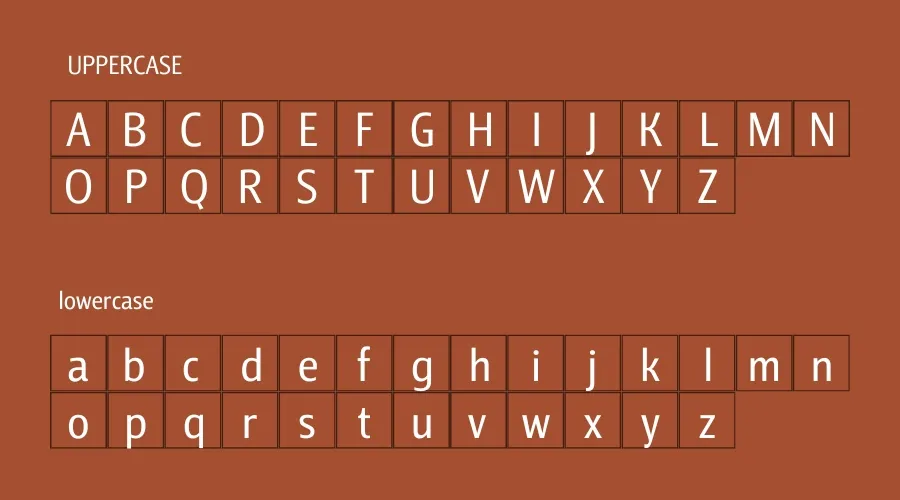
Barnaul Grotesk Font
About Barnaul Grotesk Font
In this post, we shell going to present to you a very attractive sans-serif typeface known as the name of Barnaul Grotesk Font. It was developed by Natalia Vasilyeva and contains 8 multiple types of styles. In 2007, this font was published through ParaType.
It has little proportions, and open forms and may be utilized in an expansive mixture of software for texture setting such as body text, titles, headings, and for collection topics.